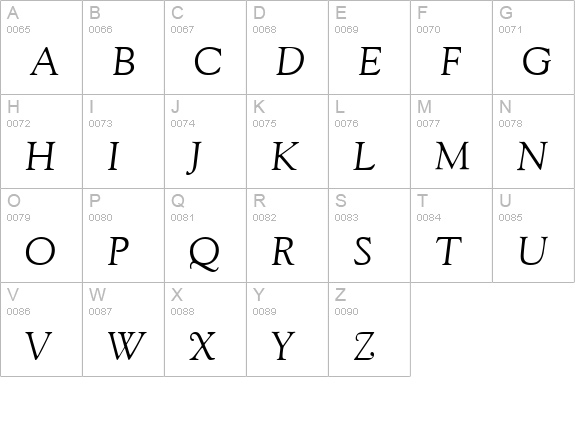
Gilde Italic Font Details
Gilde Italic is a distinctive, italic variant in the Gilde typeface family \xE2\x80\x94 well suited to design and typography projects.
Gilde Italic font is a sophisticated and elegant typeface that exudes a sense of timeless charm and refinement. With its graceful curves and delicate serifs, this font is perfect for adding a touch of sophistication to any design project. The flowing italic style of Gilde Italic lends a sense of movement and grace, making it ideal for creating eye-catching headlines or elegant body text. What sets Gilde Italic font apart is not only its exquisite design, but also the fact that it is available for free download at FontsMarket.com. This means that you can easily access this stunning font and use it in your projects without any cost. Whether you are working on a branding project, a wedding invitation, or any other creative endeavor, Gilde Italic font will elevate your design with its unique blend of elegance and charm. Download Gilde Italic font today from FontsMarket.com and experience the beauty and versatility of this stunning typeface. Let Gilde Italic enhance your designs and help you create truly memorable and impactful visuals.